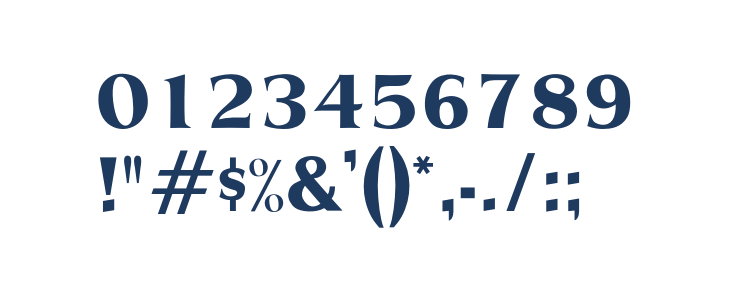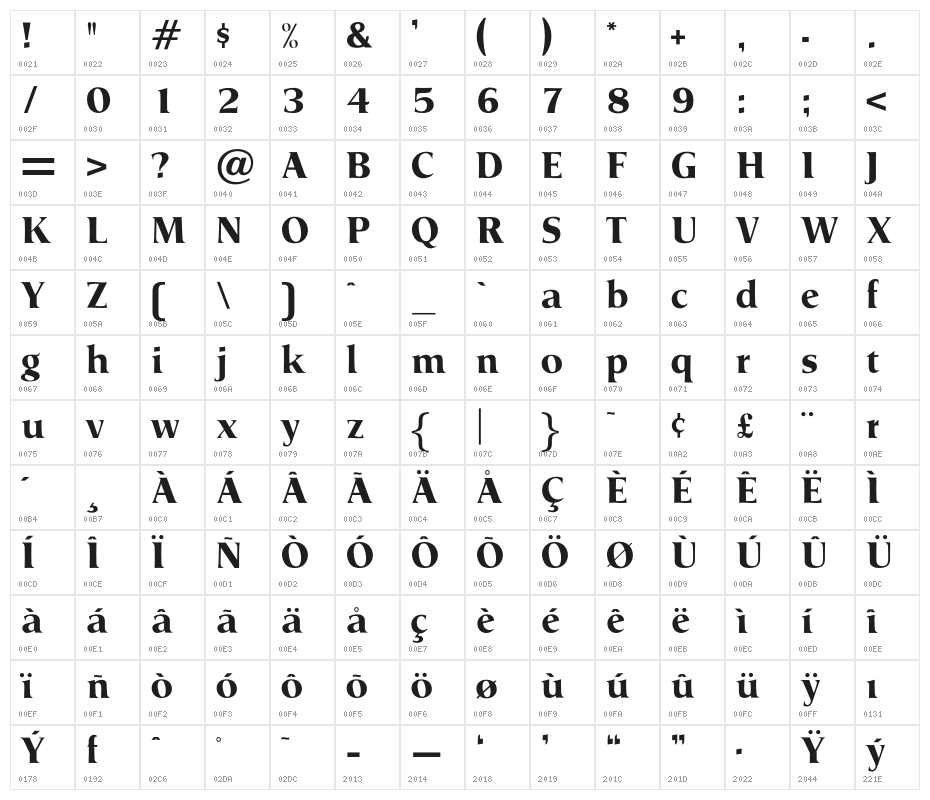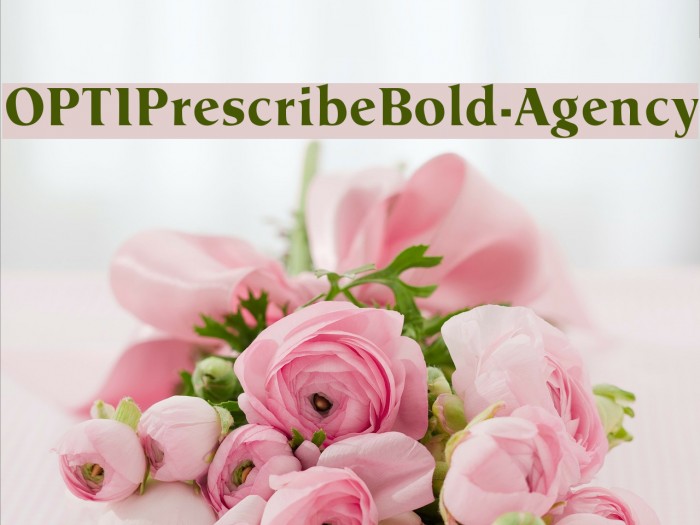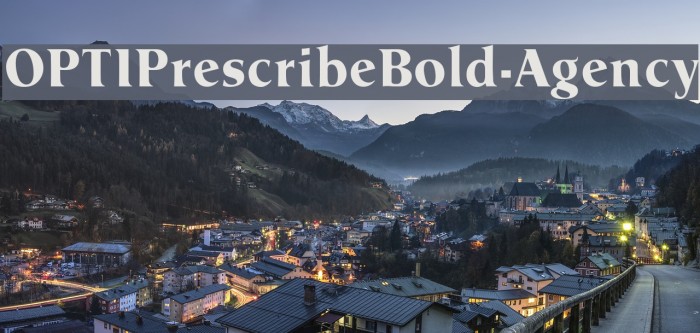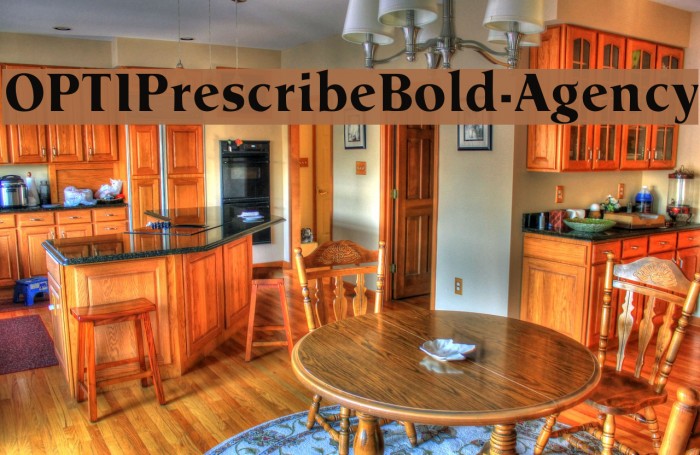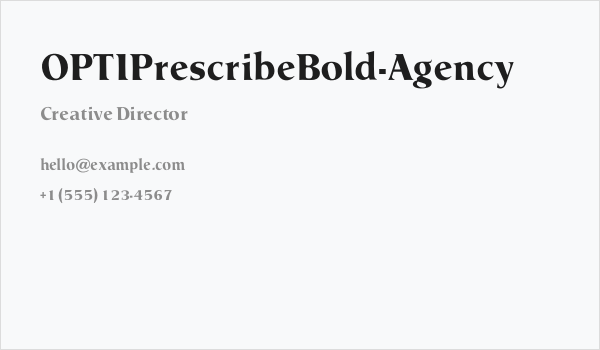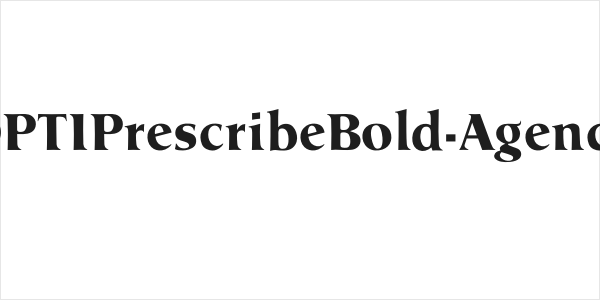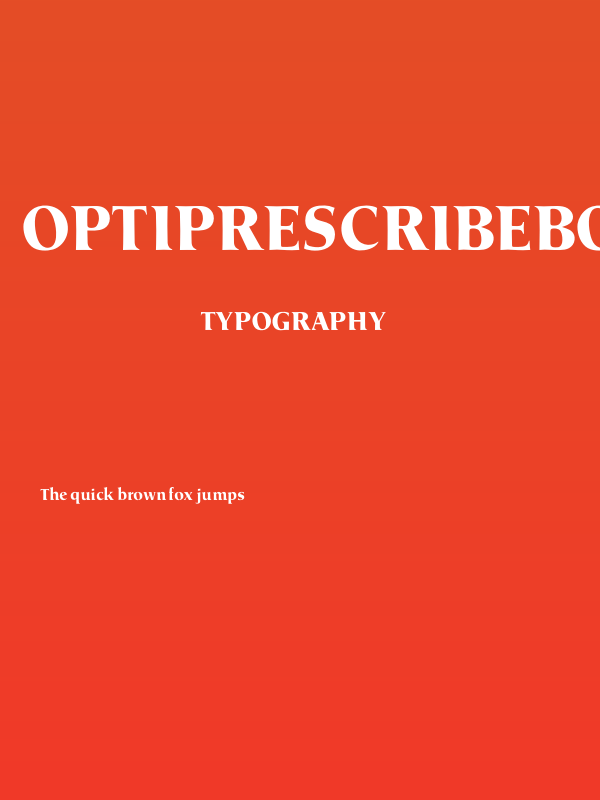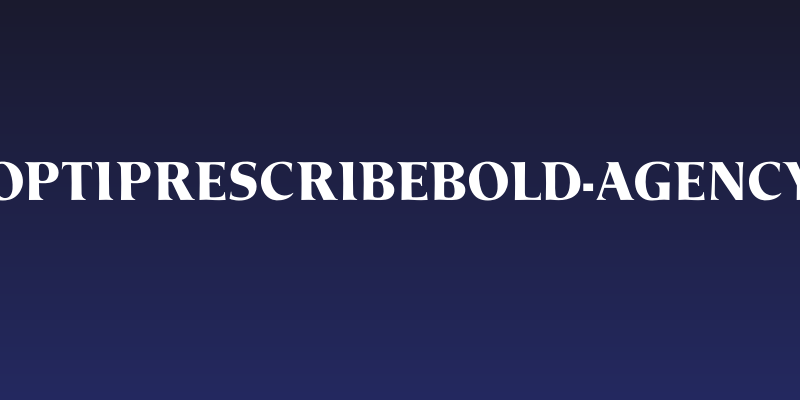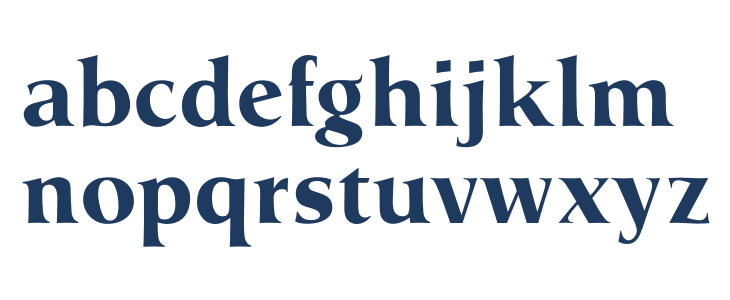
OPTIPrescribeBold-Agency Font
OPTIPrescribeBold-Agency Description
This font exhibits a bold and authoritative presence, characterized by its strong, thick strokes and high contrast between thick and thin lines. The serifs are pronounced, adding a classic touch to the overall modern design. The uppercase letters are particularly striking, with a commanding presence that demands attention. The lowercase letters maintain a consistent style, ensuring readability while retaining the bold aesthetic. Numerals are clear and robust, making them suitable for impactful displays. Special characters are well-integrated, maintaining the font's cohesive look.
| Proposed Projects | Ideal for headlines, branding, and editorial design where a strong, authoritative look is desired. |